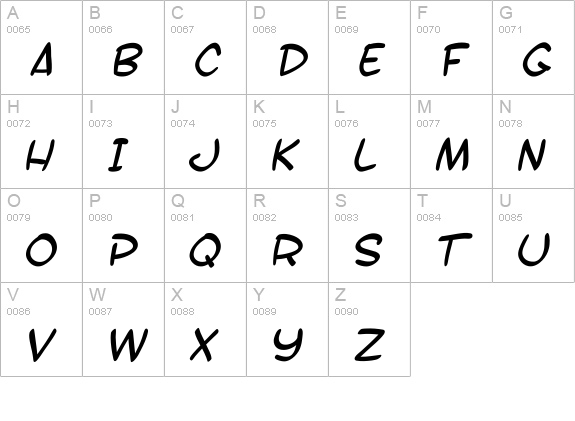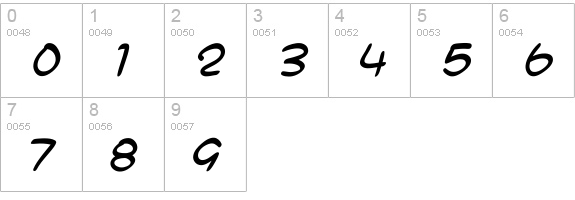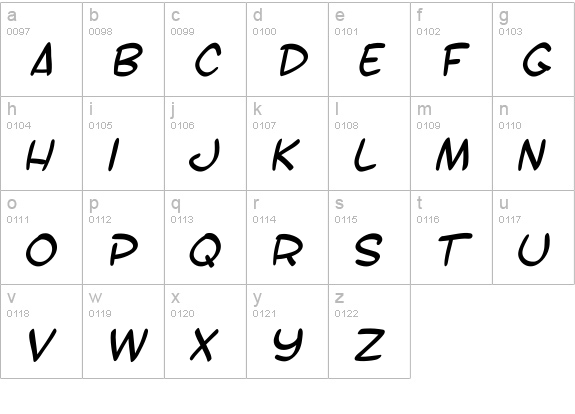
SF Toontime B Italic Font Details
SF Toontime B Italic is a distinctive, italic variant in the SF typeface family \xE2\x80\x94 well suited to design and typography projects.
SF Toontime B Italic is a whimsical and playful font that adds a touch of fun to any design project. Its distinctive italic style gives it a sense of motion and energy, making it perfect for projects that require a dynamic and animated feel. Whether you're creating a children's book, designing a logo for a cartoon show, or adding a playful touch to a website, SF Toontime B Italic is sure to bring a smile to your audience's faces. This font features a unique combination of bold and rounded letterforms, creating a playful and friendly aesthetic. Each letter is carefully crafted to maintain legibility while still retaining its unique character. The slight slant of the italic style adds a sense of movement, making it appear as if the letters are dancing across the page. One of the best things about SF Toontime B Italic is that it is free! Yes, you read that right - this delightful font is freely available to download at FontsMarket.com. Now you can add a touch of whimsy to your designs without breaking the bank. With its freely available download, SF Toontime B Italic is accessible to designers and creatives of all skill levels. Whether you're a professional graphic designer or a hobbyist looking to add a playful touch to your personal projects, this font is a must-have in your font library. So, what are you waiting for? Download SF Toontime B Italic today from FontsMarket.com and let your creativity run wild. Add a dash of fun to your designs and watch as they come alive with personality and charm. Whether you're designing for print or digital, SF Toontime B Italic is sure to add that extra spark that sets your designs apart.